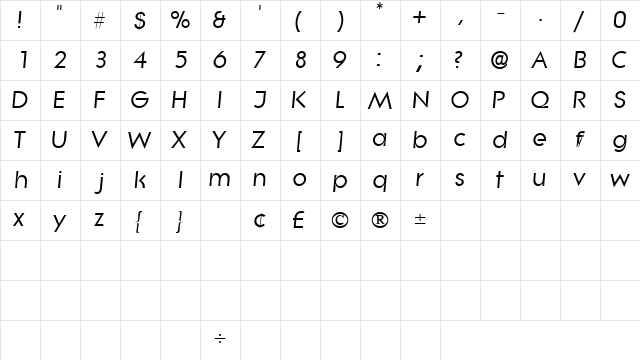
SaborSSK Italic
Design Context for SaborSSK Typeface
SaborSSK offers clean, dependable letterforms without strong stylistic allegiance, making it a practical choice for designers who need flexibility. Its italic angle brings a sense of urgency and motion to the letterforms.
Pro Tip: Try SaborSSK for annotation and caption copy alongside an upright companion — the contrast in angle creates a dynamic but ordered typographic system.